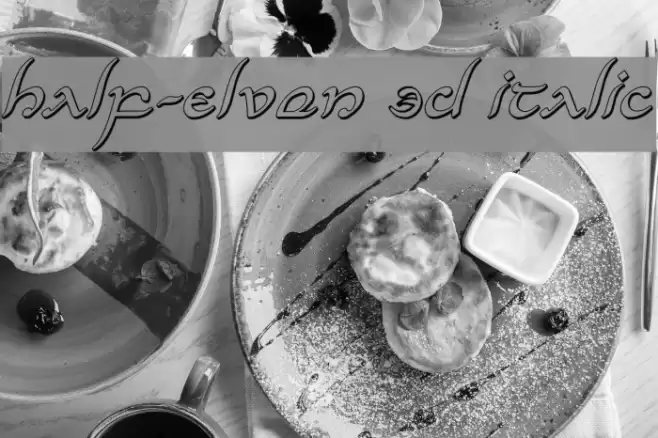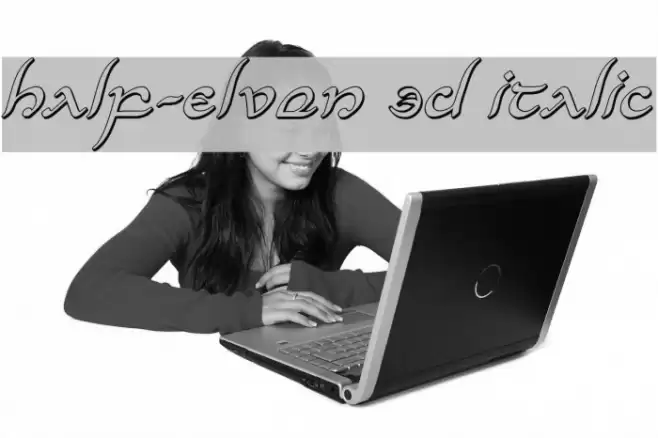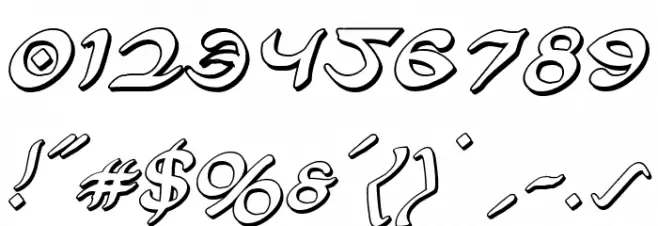
Half-Elven 3D Italic Font
Half-Elven 3D Italic Description
This font features a unique, flowing script style with a distinct 3D effect that adds depth and dimension to each character. The italicized letters have a whimsical, elven-inspired design, characterized by elegant curves and pointed edges. The uppercase and lowercase letters maintain a consistent style, while the numerals and special characters complement the overall aesthetic. The font's intricate details and artistic flair make it ideal for projects that require a touch of fantasy or elegance.
A whimsical, 3D italic script with an elven-inspired design from Uncategorized fonts.
- Proposed Projects: Perfect for fantasy-themed designs, book covers, game titles, and decorative invitations.